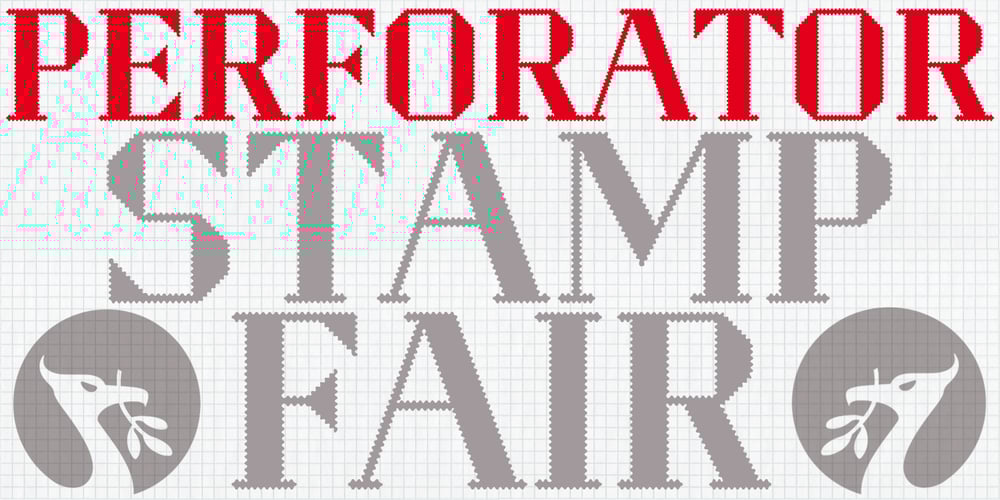
Perforator Font Family was designed by Keith Bates and published by K-Type. Perforator contains 1 styles and family package options. Perforator is a display font based on K-Type’s Straight Line typeface with edges that simulate stamp perforations. The font is designed for large-scale use in headings, titles, posters, banners and signage.For post offices, mail systems, philatelists and stamp dealers, Perforator is the perfect visual signifier for any kind of ‘stampiness’. Perforator contains a full complement of Latin Extended-A characters.